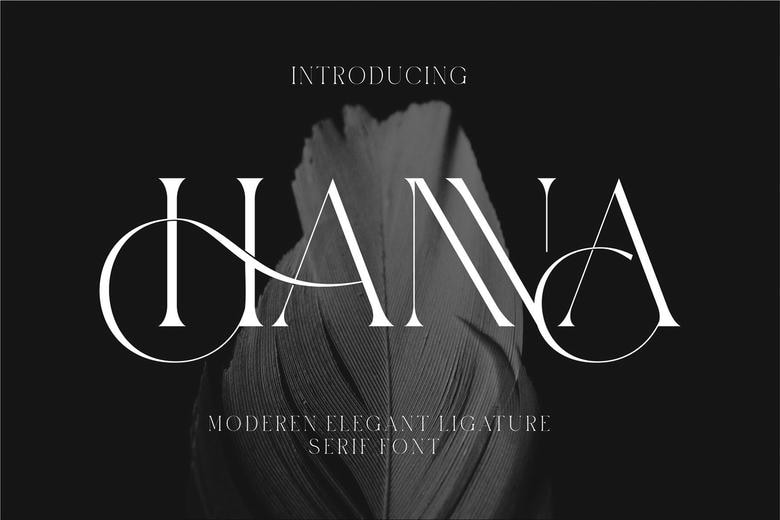
Hanna Font
Hanna is a serif font, inspired by the famous minimalist logo perfect for the purposes of designing templates, brochures, videos, advertising branding, logos, invitations, layout design, elegant crafting, beauty design and more.
Hanna Serif Font